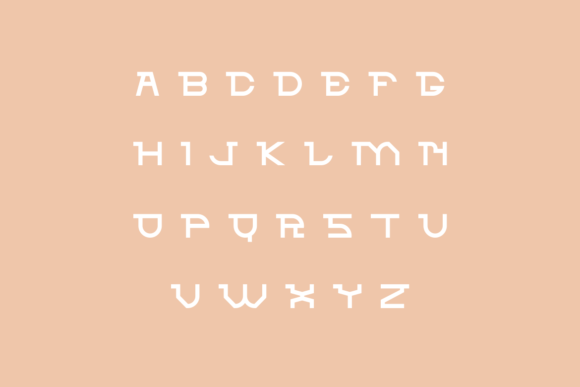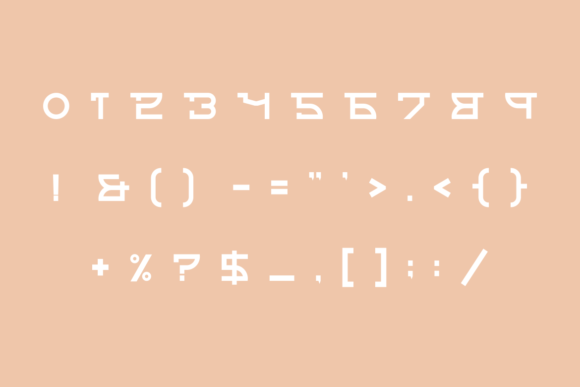
Introducing Erony Font: The Modern, Bold, and Authentic Display Font for Your Branding Needs
In the world of design, a font can make or break a project’s visual identity. When it comes to creating a lasting impression, the right font can elevate your brand’s message and leave a lasting impact on your audience. This is where Erony Font comes in – a modern, bold, and authentic display font designed to take your branding projects to the next level.
What is Erony Font?
ERONY is a carefully crafted display font that exudes confidence and style. Its modern design makes it perfect for a wide range of applications, from logos and t-shirts to esports and more. With its bold and authentic feel, Erony Font is sure to grab attention and make your brand stand out in a crowded market.
Key Features of Erony Font
- Modern Design: Erony Font boasts a sleek and contemporary design that’s perfect for brands looking to make a statement.
- Bold and Authentic: The font’s bold and authentic feel makes it ideal for creating a lasting impression on your audience.
- Versatile: Erony Font is suitable for a wide range of applications, including logos, t-shirts, esports, and more.
- Easy to Read: Despite its bold design, Erony Font is easy to read, making it perfect for use in various contexts.
Use Cases for Erony Font
Erony Font is an incredibly versatile font that can be used in a variety of contexts. Here are some of the most popular use cases:
- Logo Design: Create a lasting impression with a bold and authentic logo that showcases your brand’s personality.
- T-Shirt Printing: Add a touch of style to your apparel with Erony Font, perfect for t-shirt printing and other merchandise.
- Esports: Take your esports branding to the next level with a modern and bold font that’s sure to grab attention.
- Branding and Advertising: Use Erony Font to create eye-catching advertisements and promotional materials that showcase your brand’s message.
Why Choose Erony Font?
With so many fonts available, why choose Erony Font? Here are just a few reasons why Erony Font stands out from the crowd:
- Unique Design: Erony Font boasts a unique and modern design that’s sure to make your brand stand out.
- High-Quality: The font is crafted with high-quality and attention to detail, ensuring that it looks great in any context.
In conclusion, Erony Font is a modern, bold, and authentic display font that’s perfect for a wide range of branding projects. Its versatility, unique design, and high-quality craftsmanship make it an excellent choice for designers and crafters looking to elevate their brand’s visual identity. Whether you’re creating a logo, t-shirt, or esports branding, Erony Font is sure to make a lasting impression on your audience.